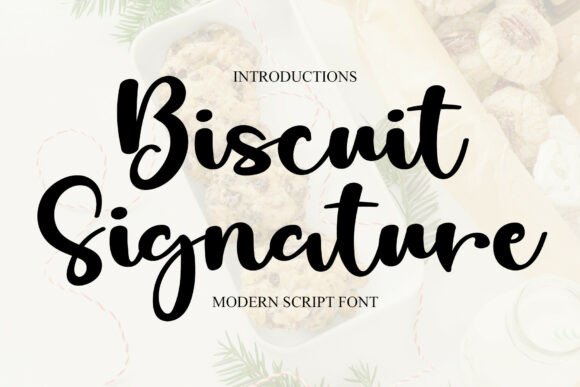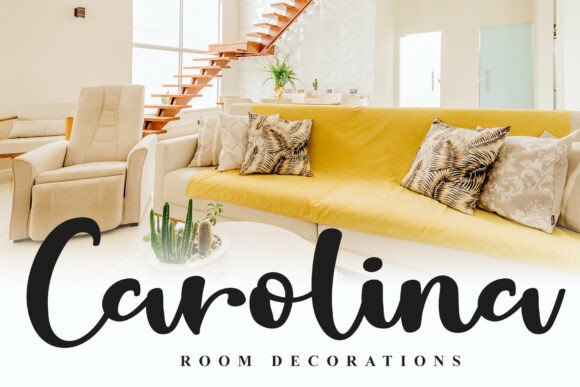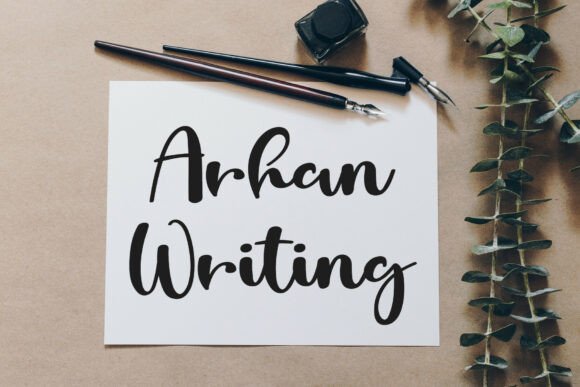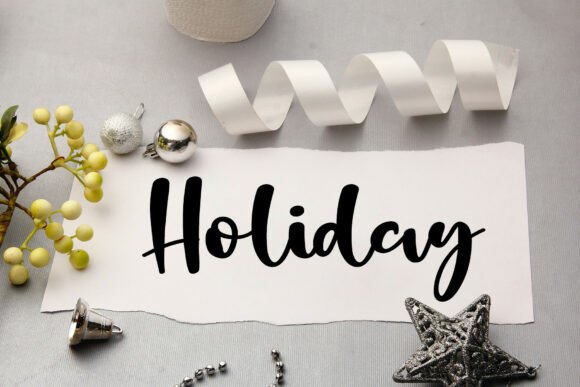
Biscuit Signature Font: Elegant Handwritten Script for Branding
About the Biscuit Signature Font
Presenting Biscuit Signature Font, a unique and stylish typeface that will make your work stand out. Biscuit Signature is a font that captivates with its bold, fluid strokes and dynamic script style. Designed to exude strength, elegance, and charisma, this font blends the beauty of handwritten calligraphy with a modern and assertive touch. Whether you need a striking logo, a stylish headline, or an eye-catching branding element, Master Daddy delivers with confidence and flair.
Biscuit Signature Font Example